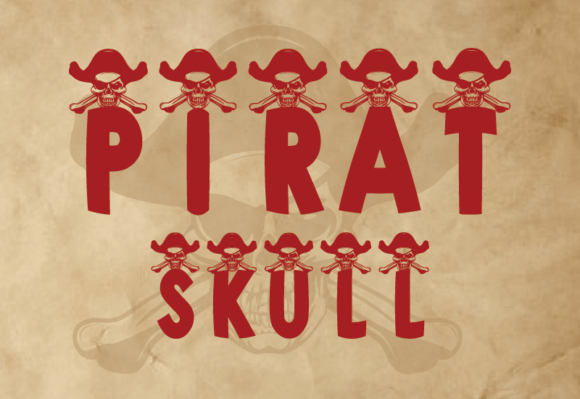
Embark on a swashbuckling adventure with Pirat Skull, a font that captures the spirit of the high seas and brings your creations to life. Inspired by the allure of pirate lore, this decorative font exudes a captivating vintage charm that will make your designs stand out.
Unleash your creativity and let Pirat Skull's bold and distinctive characters take center stage in your projects. Whether you're designing eye-catching logos, creating unique invitations, or crafting captivating social media graphics, this font will elevate your work to new heights.
With its undeniable vintage appeal, Pirat Skull transports you back in time, evoking the romance and excitement of pirate expeditions. Its carefully crafted glyphs, reminiscent of weathered maps and aged parchment, add an air of authenticity to your designs.
Step into the world of buccaneers and swashbucklers, where Pirat Skull's bold strokes and playful details create a captivating visual experience. Let your imagination run wild as you explore the endless possibilities this font offers.
Don't settle for ordinary fonts that blend into the background. Choose Pirat Skull and make a statement with your designs. Let its unique charm and vintage allure work their magic, transforming your creative projects into masterpieces that leave a lasting impression.